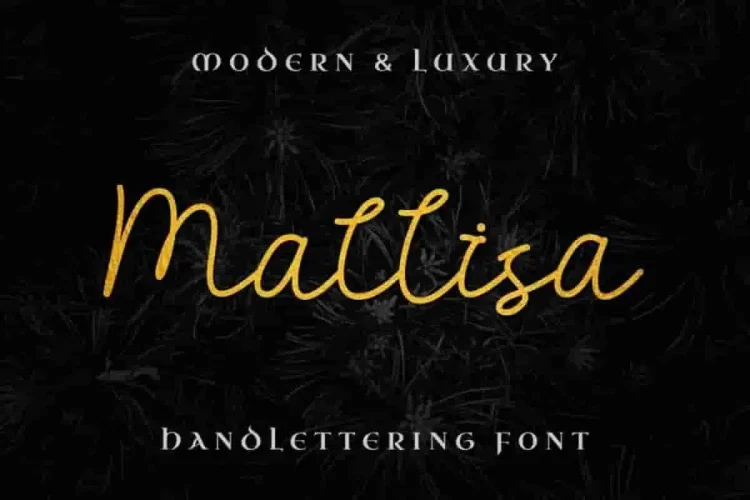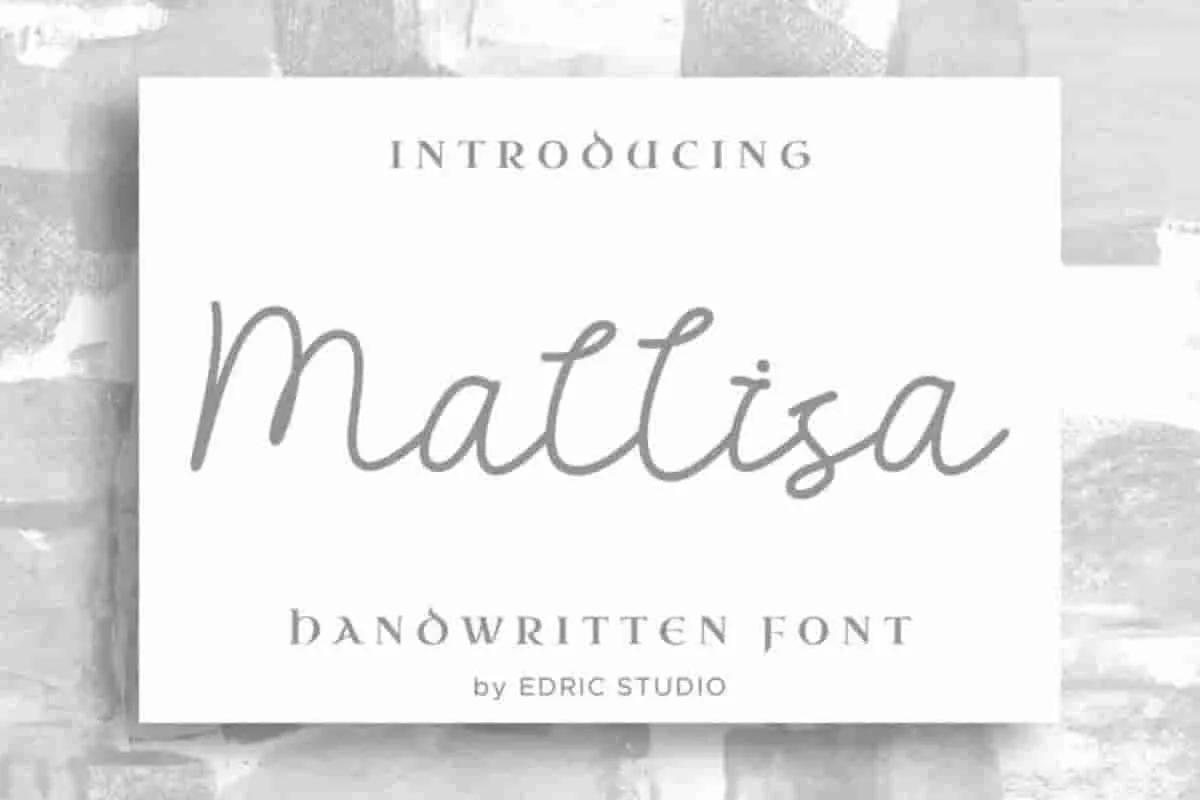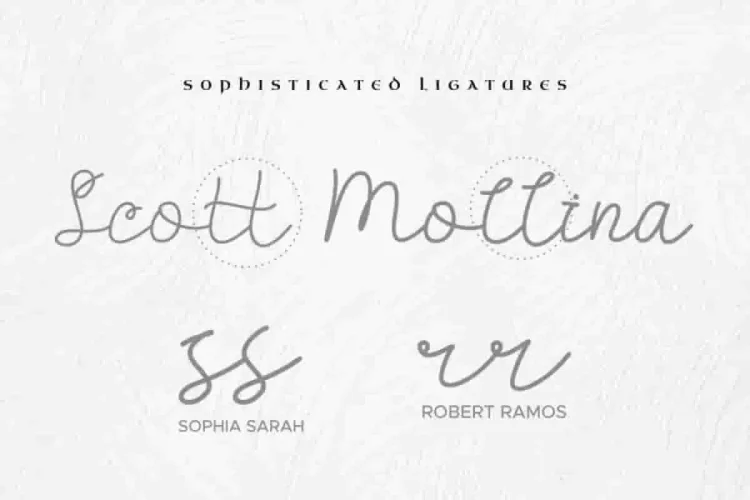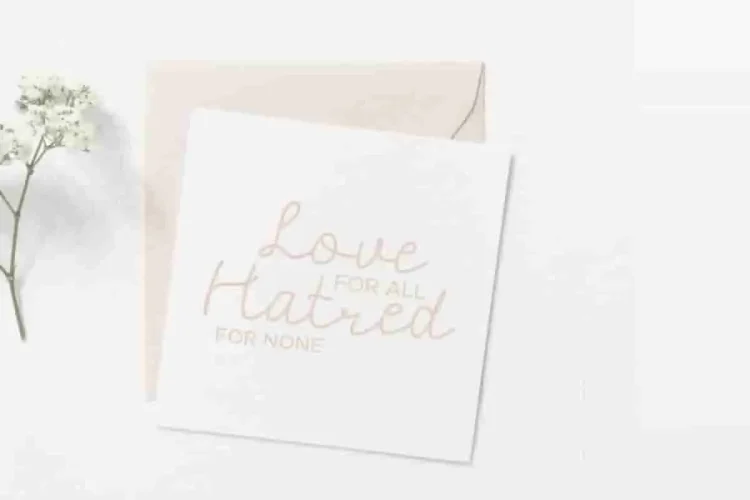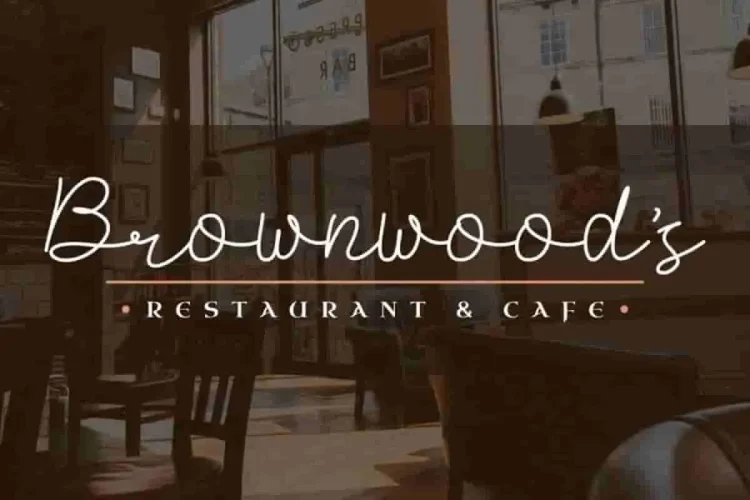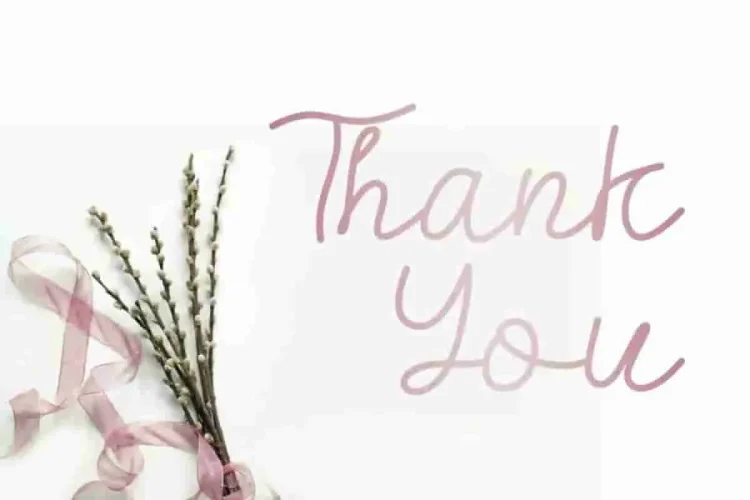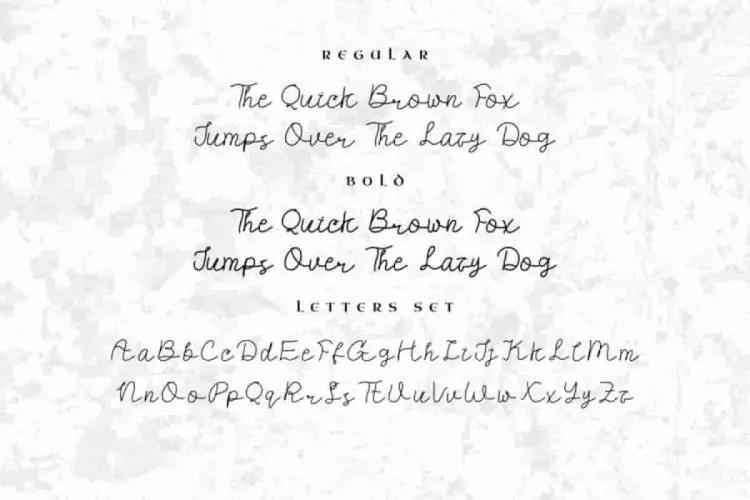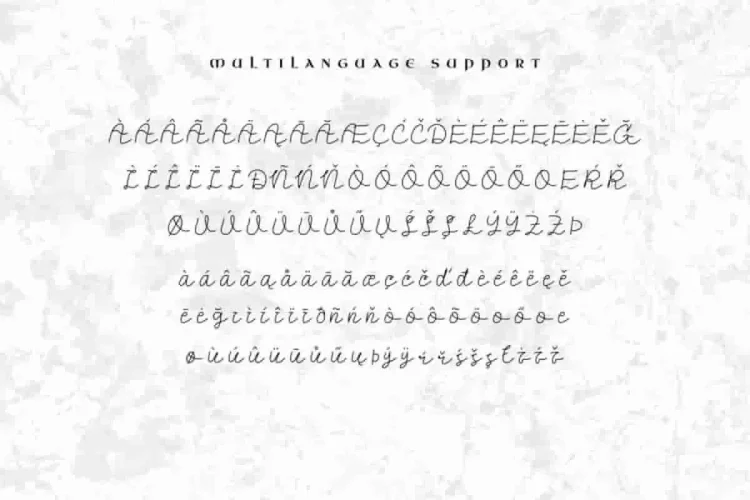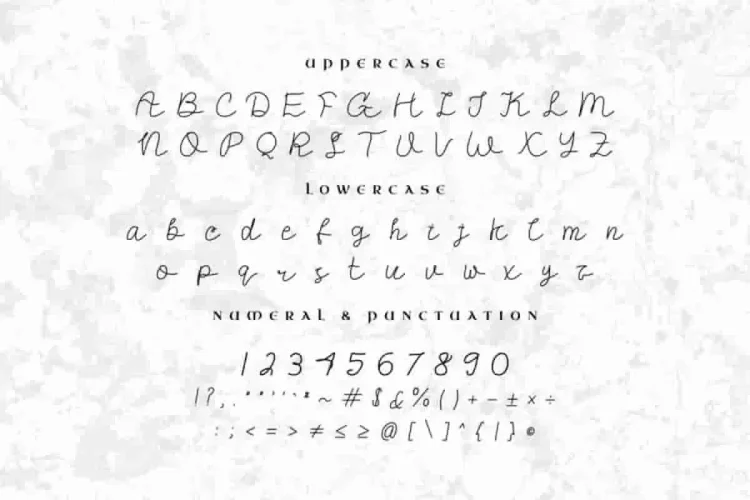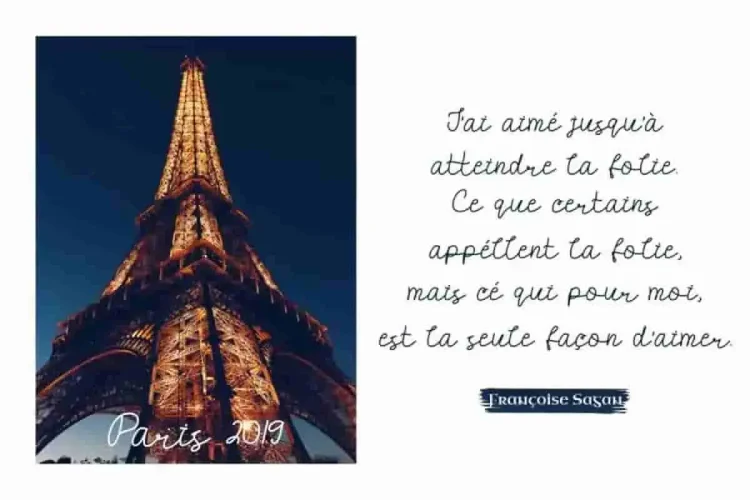
Mallisa Script Handwritten Font
Let us introduce you to our latest font : Mallisa Handwritten font!
This is a new script handwritten style font. It has a beautiful and stylish glyphs. Designed to elevate your work, Mallisa blends the beauty of handwritten strokes with the sophistication of custom ligatures. Just like in the preview, you’ll find stunning details such as the elegant “tt” and “rr” ligatures, perfect for names, branding, and professional logos. These features don’t just look good—they make your text feel uniquely personal.
What makes Mallisa even better?
It comes in two versatile styles:
• Regular, for smooth elegance
• Bold, for a bolder, more confident look
Whether you’re designing for a wedding, personal branding, photography watermark, invitations, or promotional materials—Mallisa fits beautifully. Thanks to its well-crafted curves, your text will always stand out with grace.
Mallisa Handwritten font has two styles : reguler and bold.  It also works with multi languages.
Mallisa Handwritten font has a stylish elegant glyph that will be perfect for card, flyer, brochure, branding, logotype, wedding, advertising, promotion, photography or any other design projects. It is so elegant, classic and beautiful.
So, if you’re looking for a handwritten script that’s timeless, elegant, and practical—Mallisa is the answer.